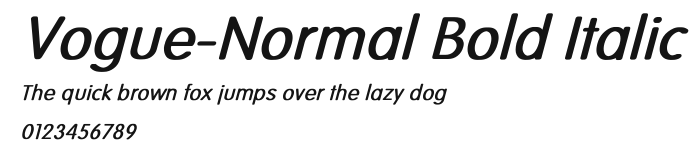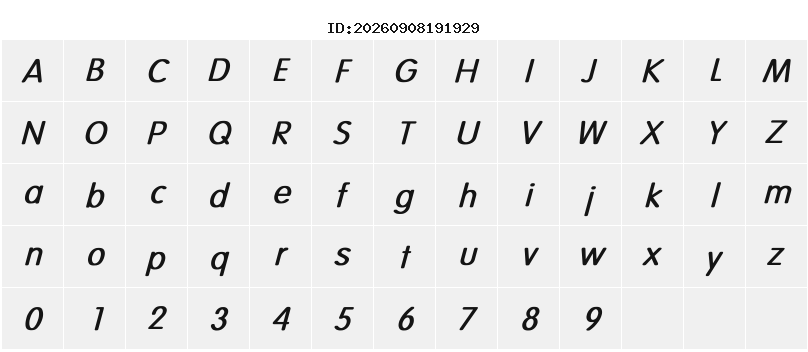
Vogue-Normal Bold Italic Preview
• Font Name: Vogue-Normal Bold Italic
• Full Font Name: Vogue-Normal Bold Italic
About Vogue-Normal Bold Italic.ttf
Vogue-Normal Bold Italic.ttf is a modern, elegant sans-serif font designed for ultimate readability and visual harmony. Perfect for branding, headlines, web design, and print materials.